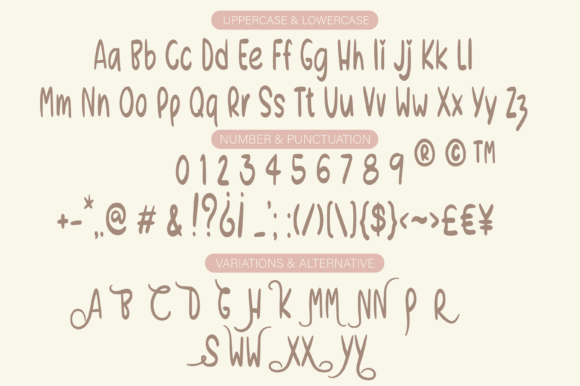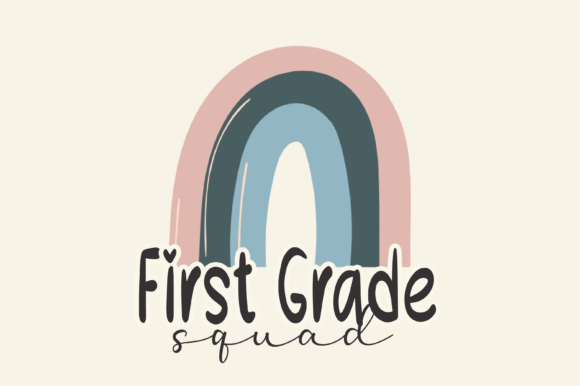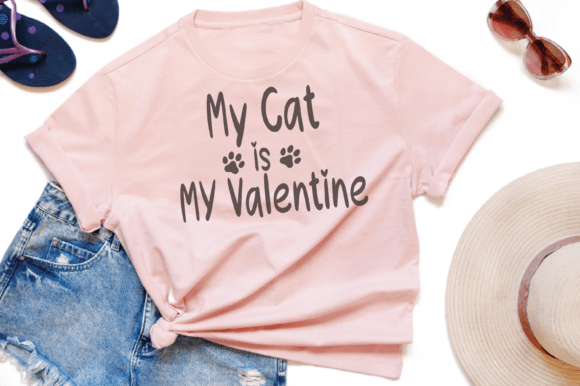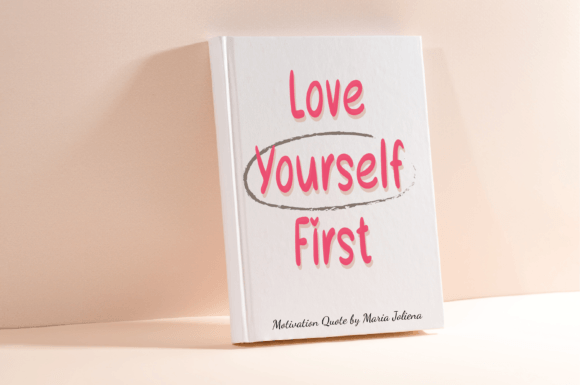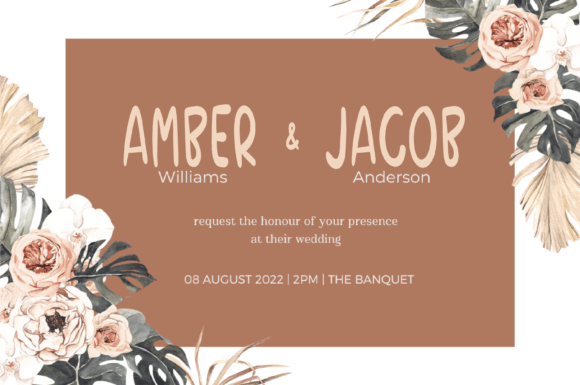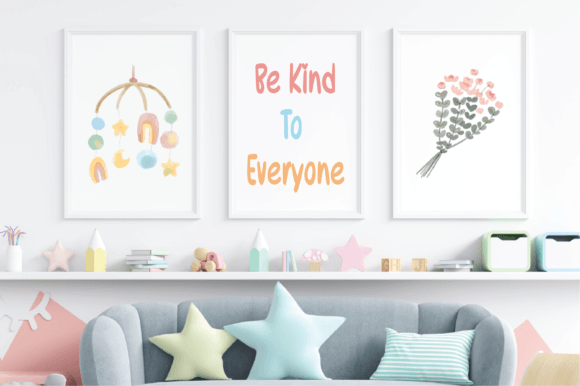
Introducing Angle Bird Font: The Ultimate Go-To for Fun and Casual Designs
Are you tired of using the same old fonts for your digital designs, crafts, and presentations? Look no further! Angle Bird Font is here to revolutionize your creative projects with its fun and casual handwritten style. In this article, we’ll dive into the world of Angle Bird Font and explore its endless possibilities for designers, crafters, and anyone looking to add a personal touch to their work.
The Charm of Angle Bird Font
Angle Bird Font is a beautifully crafted handwritten font that exudes a sense of playfulness and friendliness. Its unique and quirky style makes it perfect for a wide range of projects, from digital designs and presentations to crafts, greeting cards, and more. Whether you’re a professional designer or a DIY enthusiast, Angle Bird Font has the potential to become your favorite go-to font for all occasions.
What Makes Angle Bird Font So Special?
So, what sets Angle Bird Font apart from other fonts? Here are just a few reasons why this font is a cut above the rest:
- Unique and Quirky Style: Angle Bird Font boasts a one-of-a-kind handwritten style that’s sure to grab attention and add a touch of personality to your designs.
- Versatility: This font is incredibly versatile and can be used for a wide range of projects, from formal presentations to casual crafts and social media graphics.
- Easy to Read: Despite its playful style, Angle Bird Font is surprisingly easy to read, making it perfect for body text and longer blocks of content.
- Customizable: With Angle Bird Font, you can easily customize your text to fit your brand’s style and aesthetic, making it perfect for branding and marketing materials.
Angle Bird Font is a dream come true for designers and crafters looking to add a personal touch to their work. Here are just a few ideas to get you started:
- Digital Designs: Use Angle Bird Font to create stunning social media graphics, blog headers, and digital invitations that are sure to grab attention.
- Crafts: Add a personal touch to your crafts, such as handmade cards, gift tags, and scrapbooking projects, with this beautiful handwritten font.
- Presentations: Make your presentations stand out with Angle Bird Font, perfect for titles, headings, and body text.
- Greeting Cards: Create one-of-a-kind greeting cards for special occasions, such as birthdays, weddings, and holidays, with this beautiful font.
Tips and Tricks for Using Angle Bird Font
To get the most out of Angle Bird Font, here are a few tips and tricks to keep in mind:
- Pair it with Other Fonts: Experiment with pairing Angle Bird Font with other fonts to create a unique and eye-catching combination.
- Use it for Headings and Titles: Take advantage of Angle Bird Font’s bold and playful style by using it for headings and titles.
In conclusion, Angle Bird Font is a fun and casual handwritten font that’s sure to become your go-to for all your design needs. With its unique style, versatility, and ease of use, this font is perfect for designers, crafters, and anyone looking to add a personal touch to their work. So why wait? Download Angle Bird Font today and start creating stunning designs that are sure to impress!